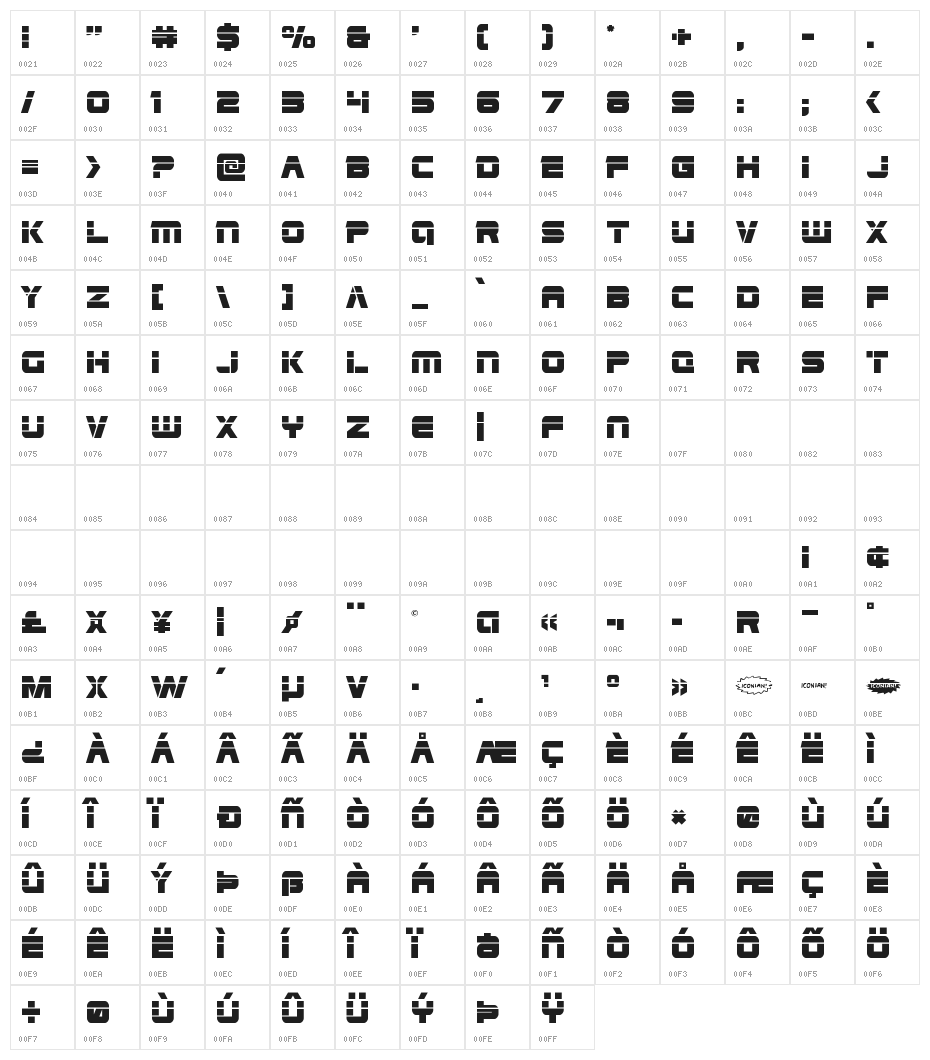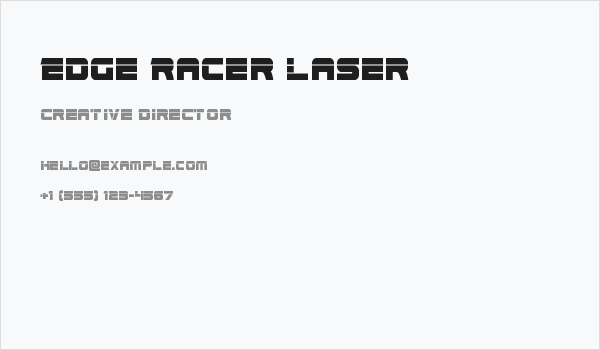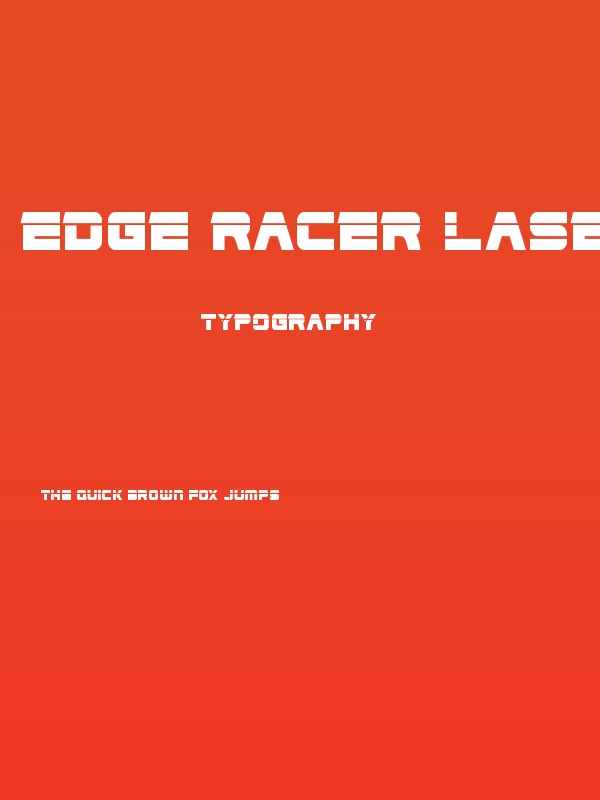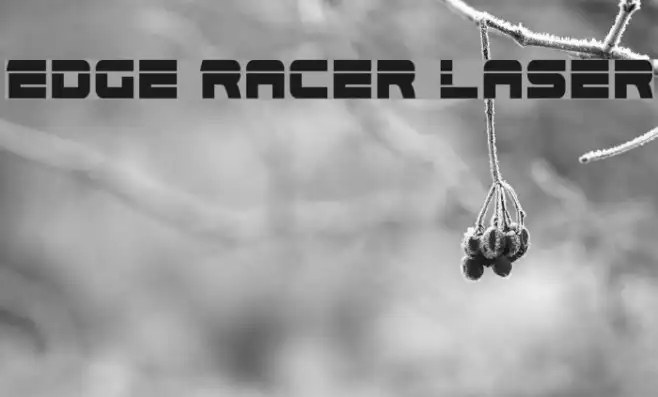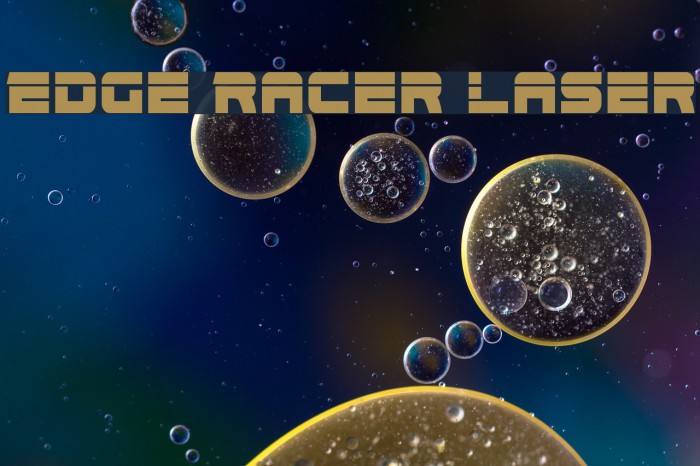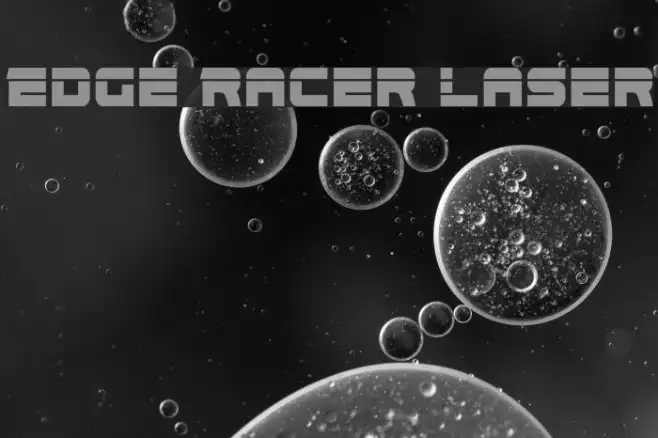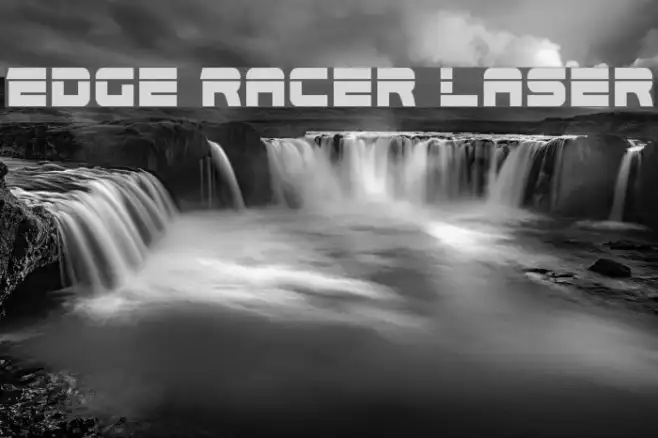
Edge Racer Laser Font
Edge Racer Laser Description
This font features a bold, futuristic design with a strong geometric influence. The characters are constructed with sharp angles and straight lines, creating a sense of speed and modernity. The uppercase letters are particularly striking, with a uniform height and width that gives a cohesive look. The lowercase letters maintain the same boldness, ensuring readability while preserving the font's unique style. Numbers and special characters are equally bold and geometric, making them stand out. The overall appearance is reminiscent of digital displays or racing themes, making it ideal for projects that require a modern, tech-savvy aesthetic.
| Proposed Projects | Ideal for technology branding, video game titles, automotive advertisements, and futuristic event posters. |